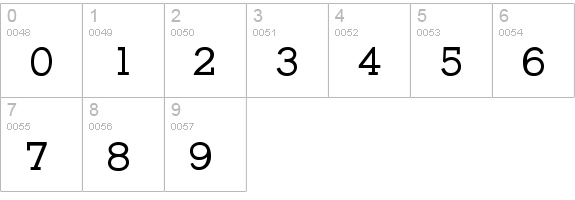
Stymie Medium Font Details
Stymie Medium is a balanced, medium-weight variant in the Stymie typeface family \xE2\x80\x94 well suited to sub-headlines, navigation, and balanced editorial work.
Stymie Medium font is a timeless and versatile typeface that strikes the perfect balance between classic elegance and modern sophistication. With its clean lines and balanced proportions, this font exudes a sense of professionalism and authority, making it an ideal choice for a wide range of design projects. What sets Stymie Medium font apart is its ability to convey a sense of refinement and polish while remaining highly readable and accessible. Whether used for headlines, body text, or branding, this font adds a touch of sophistication to any design. And the best part? Stymie Medium font is available for free download at FontsMarket.com. So you can elevate your projects with this stylish and versatile typeface without breaking the bank. Download Stymie Medium font today and see how it can enhance your designs!